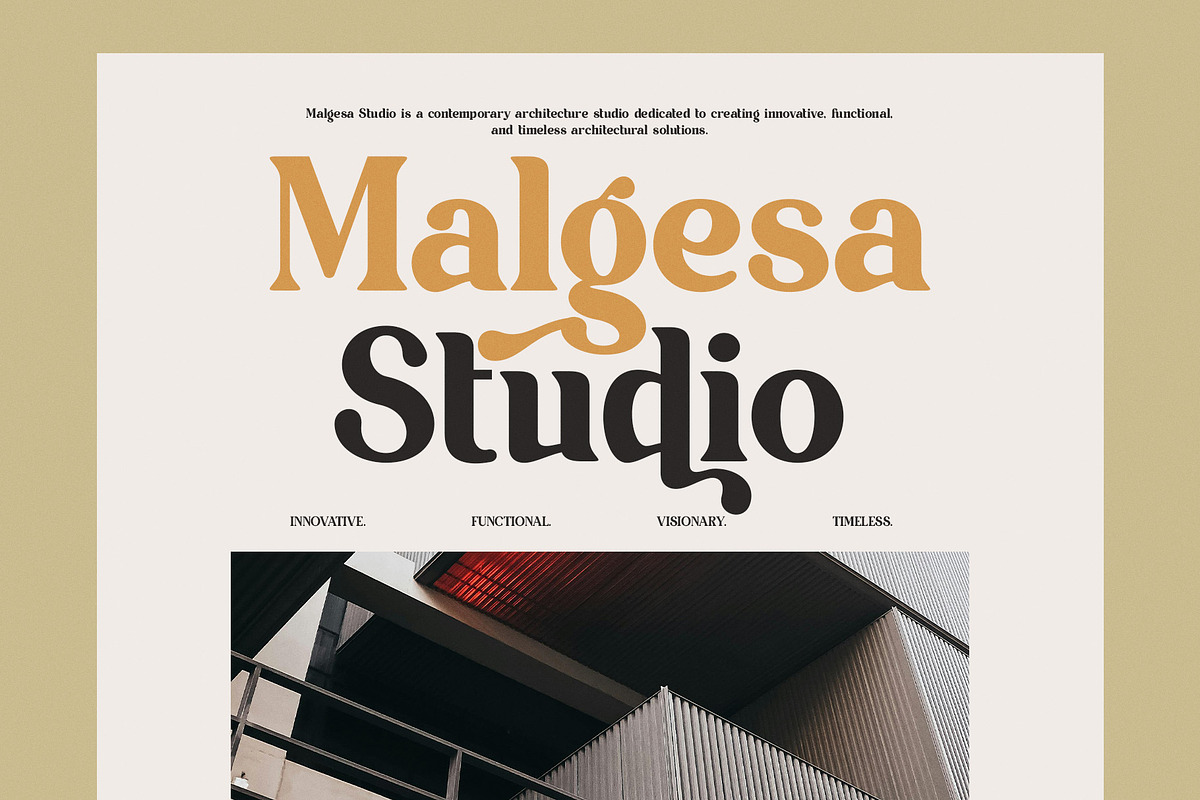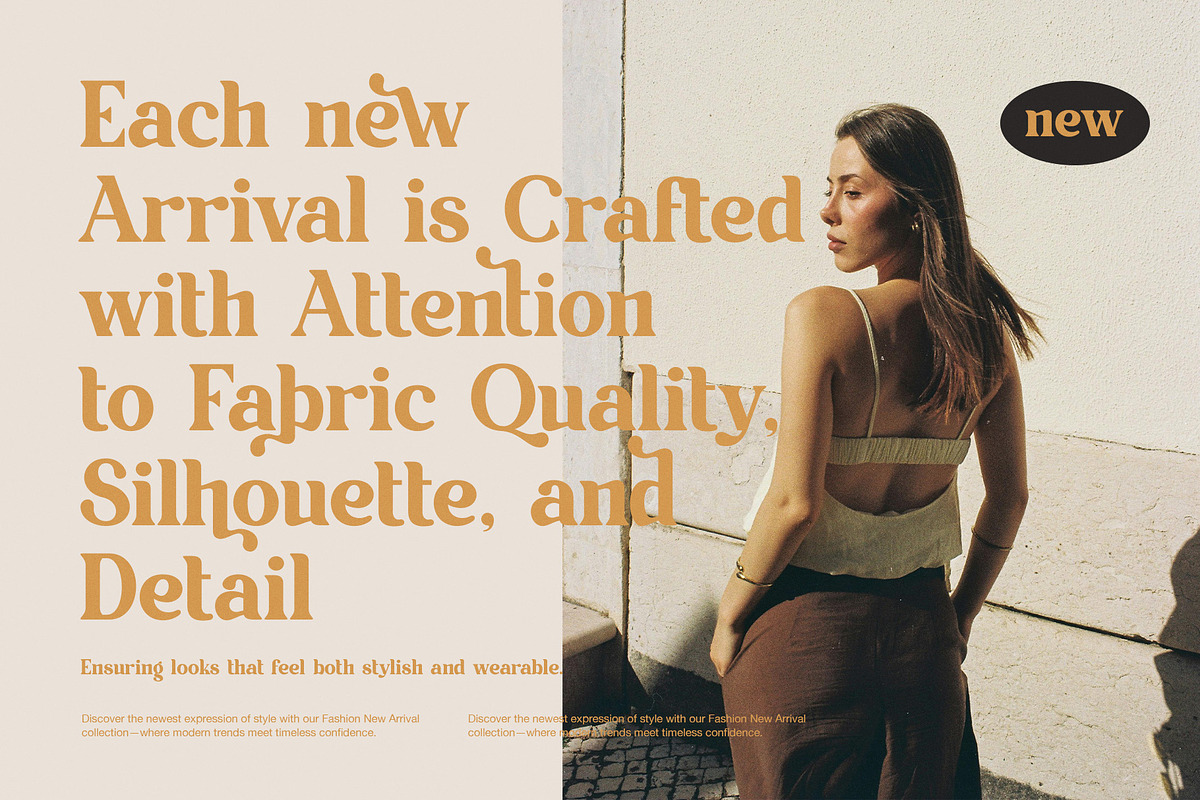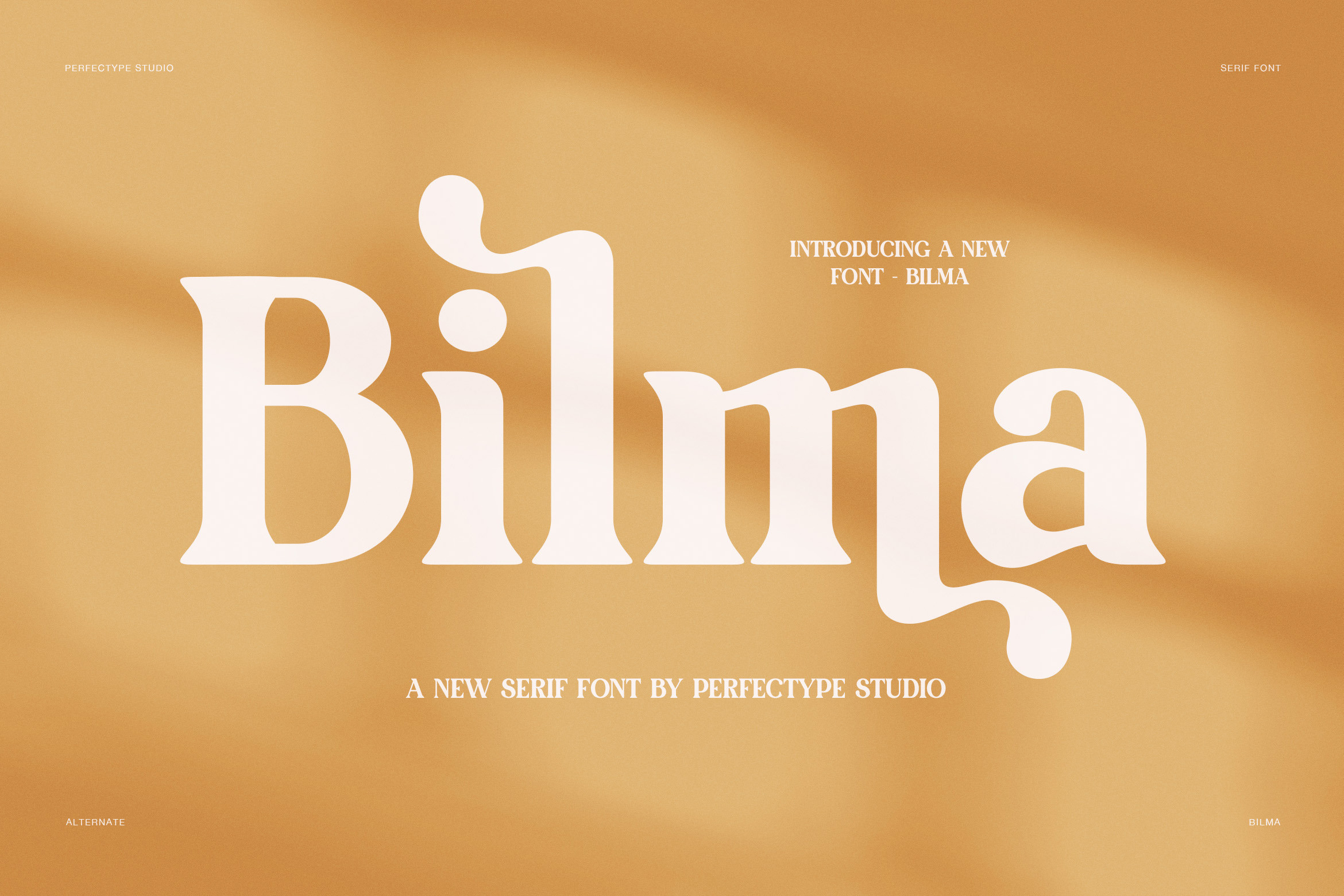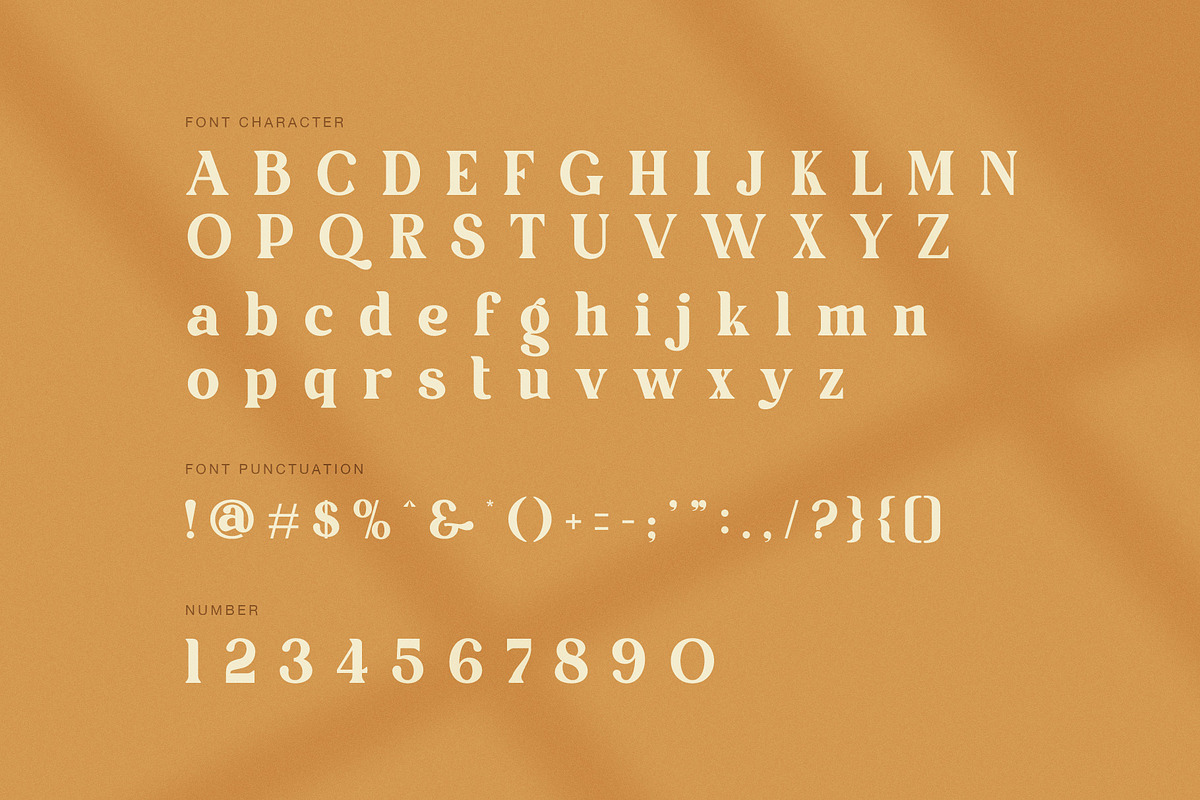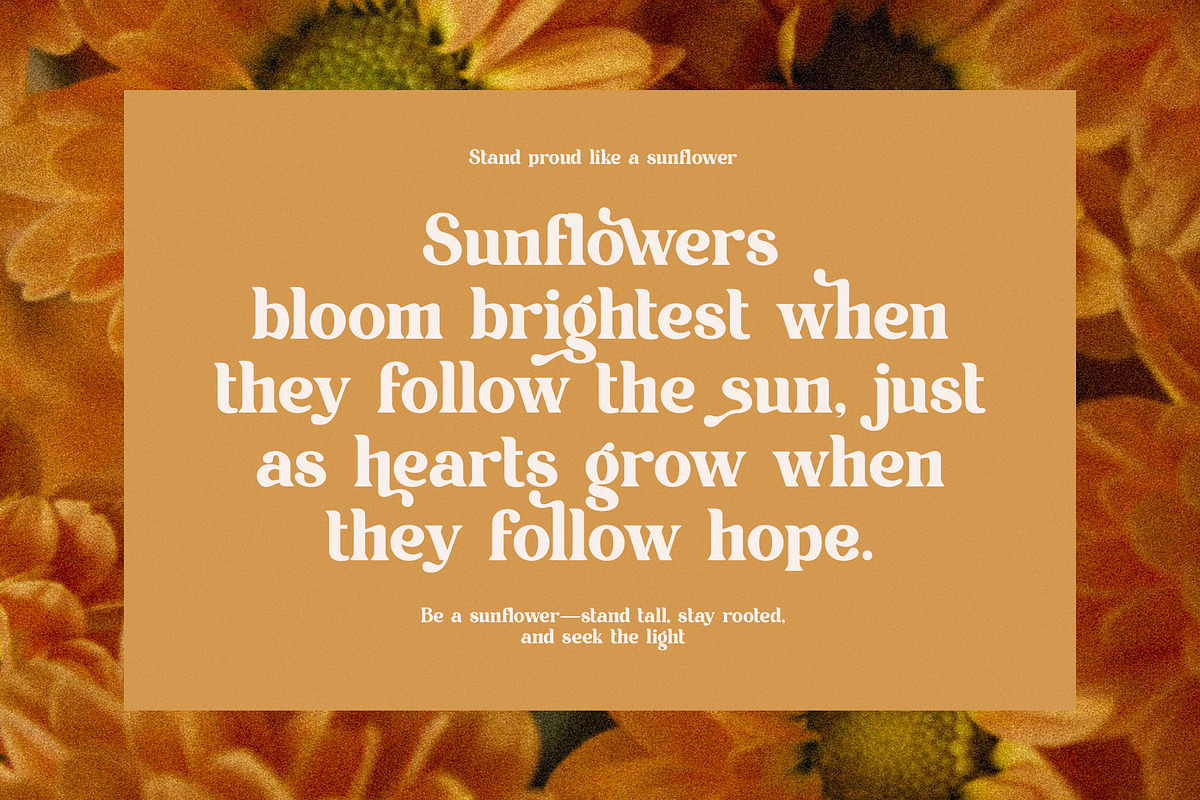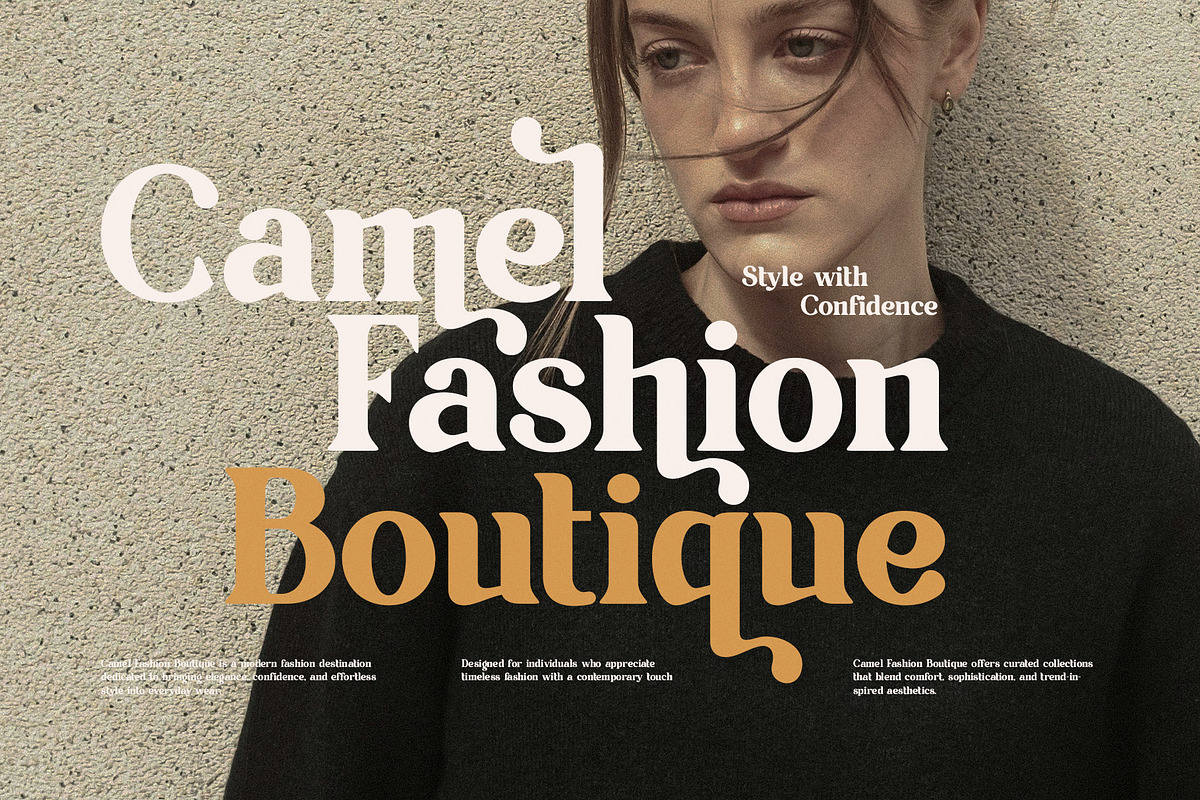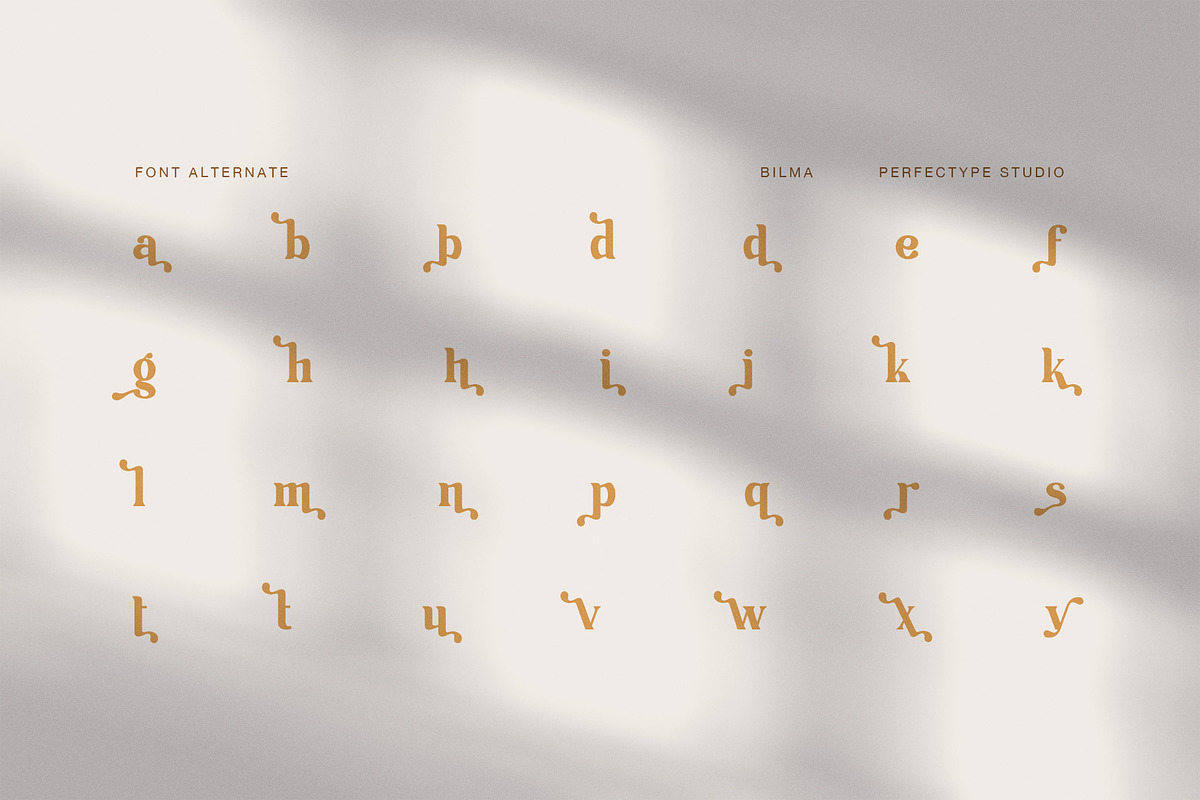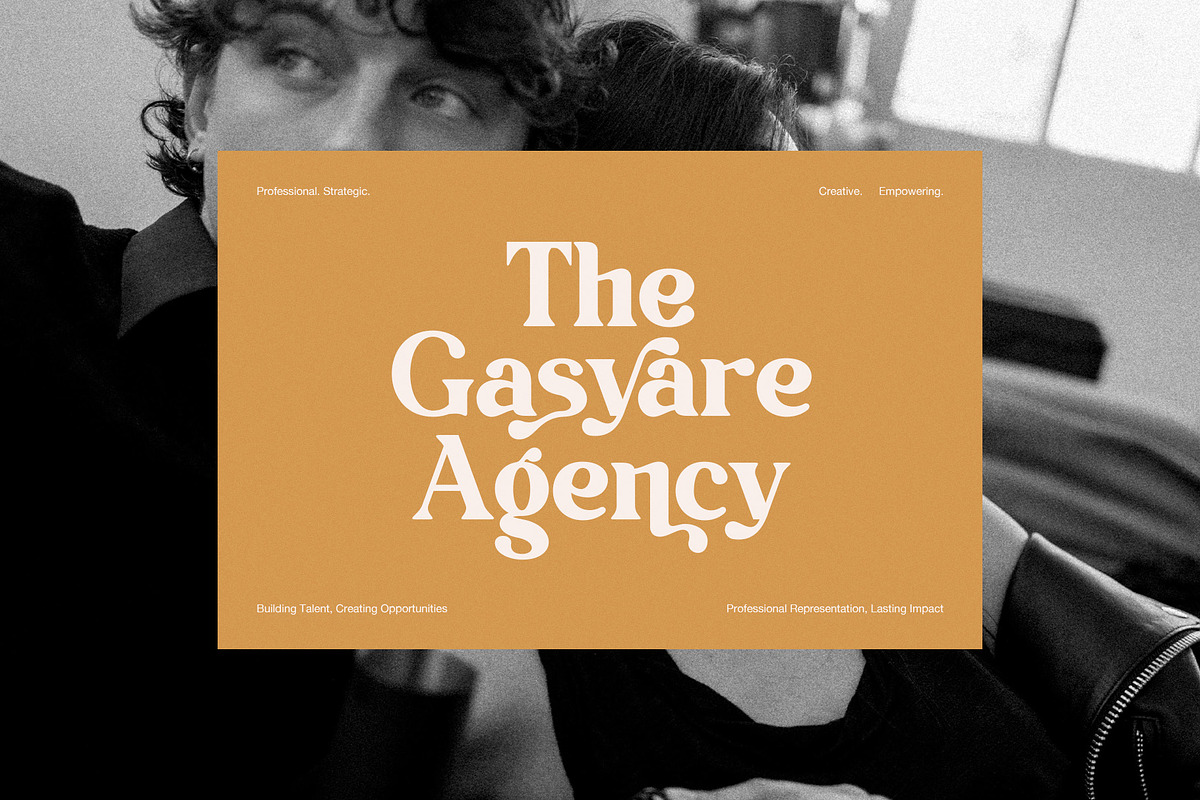
Bilma Elegant Serif Font
Bilma Elegant Serif Font is a bold display serif with a warm, stylish, and highly expressive look. It blends classic serif structure with soft curves, rounded terminals, and charming alternate characters. As a result, it feels elegant, playful, and full of personality. This font is made for designers who want a serif typeface that looks premium, yet still feels fresh and friendly.
The shape of Bilma is strong and easy to notice. Its thick strokes give the font a clear visual weight, while the serif details keep it refined and polished. At the same time, the rounded forms and soft edges make the type feel more inviting than a strict traditional serif. Because of this balance, Bilma works beautifully in branding that needs warmth, confidence, and style.
One of its most attractive qualities is the alternate character set. Several letters feature decorative tails and curved endings that add movement to words. Therefore, headlines and logos can look more custom and more artistic. These alternates help Bilma stand out in short text, especially in names, titles, and brand marks. Moreover, the full punctuation and number set make the font feel complete and ready for many design needs.
In the preview examples, Bilma performs very well across architecture branding, fashion boutique layouts, floral quotes, lifestyle promotions, and agency identity work. In one design, it feels elegant and modern. In another, it feels playful, expressive, and bold. That flexibility makes Bilma useful for both commercial branding and creative display work.
Best uses for Bilma
logo design
fashion branding
boutique packaging
architecture branding
floral branding
quote posters
social media graphics
product labels
editorial headlines
agency branding
Why designers will love it
Bilma Elegant Serif Font gives words a rich and stylish tone. Moreover, its alternate letters create a more personal and memorable feel. While many serif fonts can look too formal, Bilma feels softer and more alive. However, it still keeps a clean structure that supports readability in display sizes.
If you need an elegant serif font with bold shapes, beautiful alternates, and a warm modern mood, Bilma is a smart choice. It brings charm, confidence, and character to branding, headlines, and standout visual layouts.